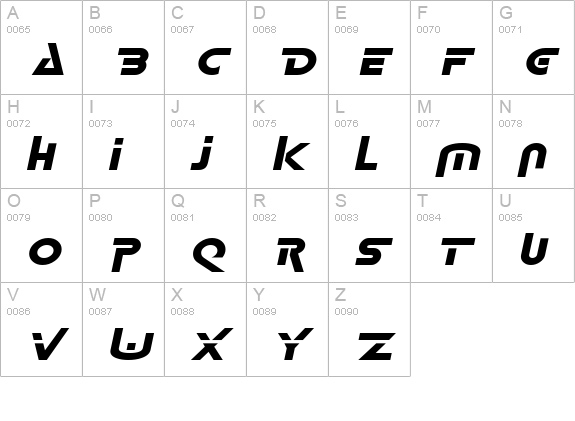
DeltaExtended Italic is a distinctive, italic variant in the DeltaExtended typeface family \xE2\x80\x94 well suited to design and typography projects.
DeltaExtended Italic font is a stylish and modern typeface that exudes sophistication and elegance. Its sleek and slanted design adds a touch of flair to any project, making it perfect for branding, advertising, and editorial purposes. The italicized characters of DeltaExtended bring a sense of movement and dynamism to the text, making it visually engaging and captivating. The best part? DeltaExtended Italic font is completely free to download at FontsMarket.com. This means you can elevate your designs with this beautiful typeface without having to worry about any additional costs. Don't miss out on the opportunity to enhance your projects with the timeless charm of DeltaExtended Italic font, available for free download now.